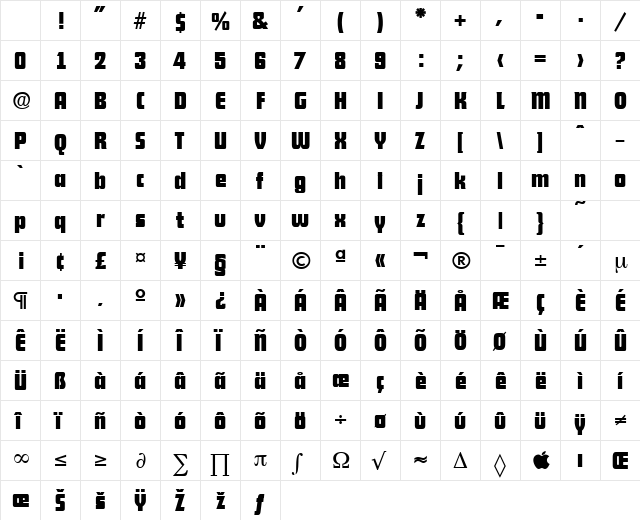
Complete DekoDisplay-Serial Bold glyph index. Displaying only characters natively supported by DekoDisplay-Serial Bold font.
DekoDisplay-Serial is built around its visual character rather than neutral utility - its distinctive forms are designed to make an impression at display sizes. Its bold stroke weight gives it real presence on the page.
Font Pairing: Pair with a clean neutral sans-serif for body copy to let DekoDisplay-Serial's character lead without overwhelming the composition.
Pro Tip: Use DekoDisplay-Serial exclusively at display sizes - it was designed to be seen, not read at length. Let a neutral companion handle body copy.